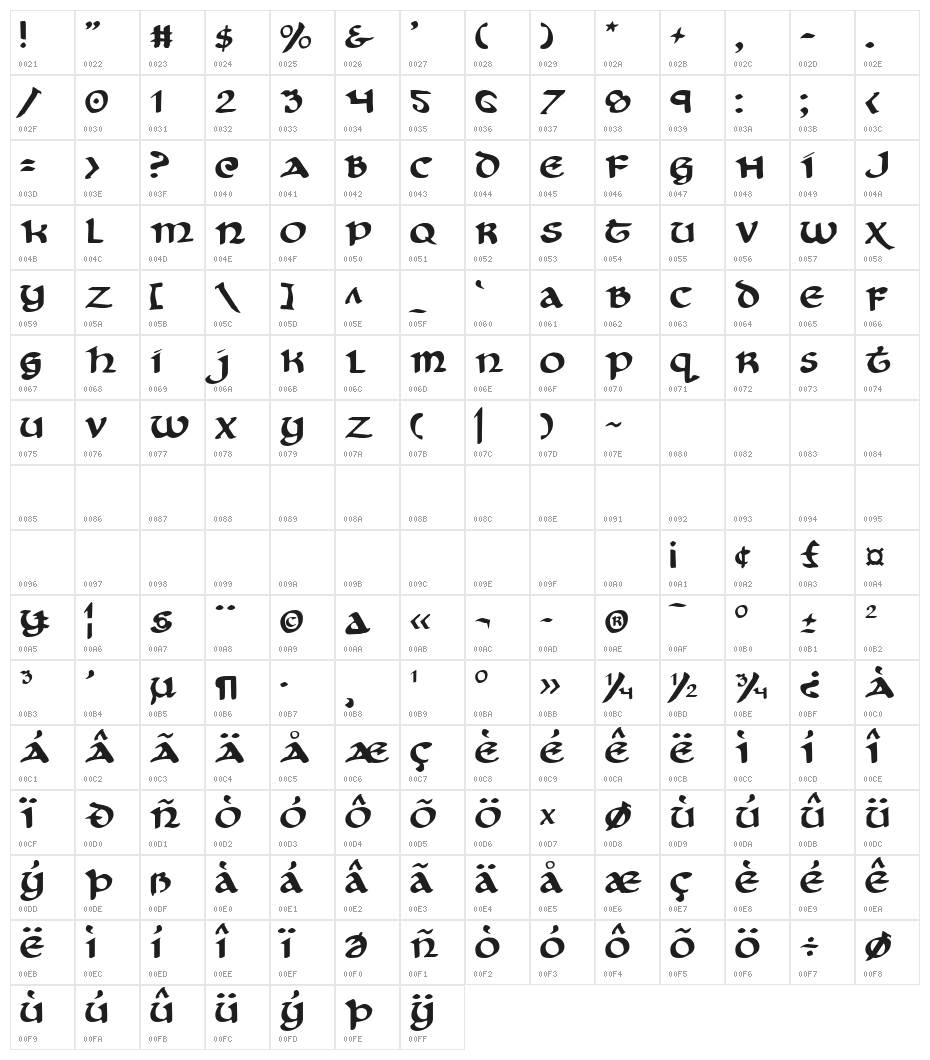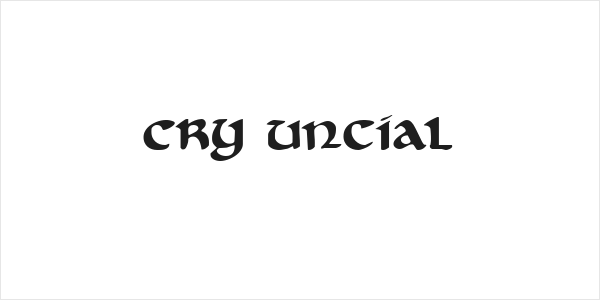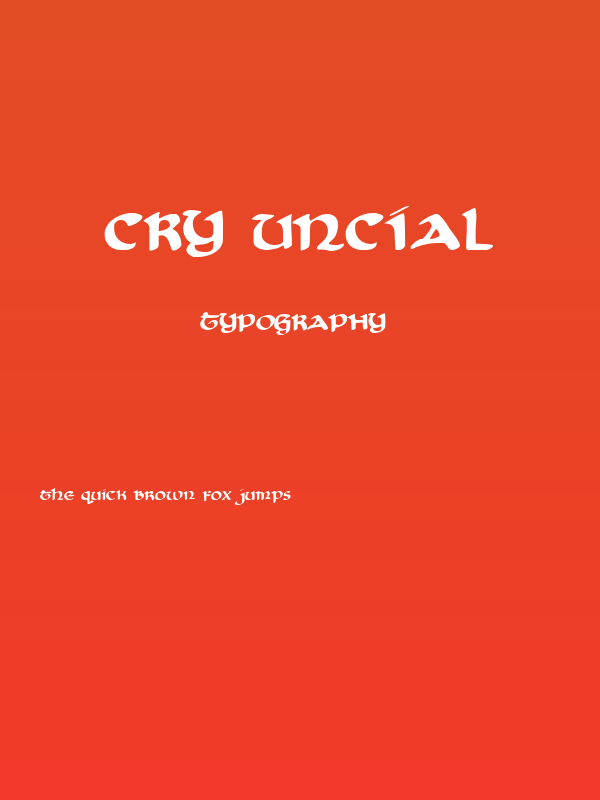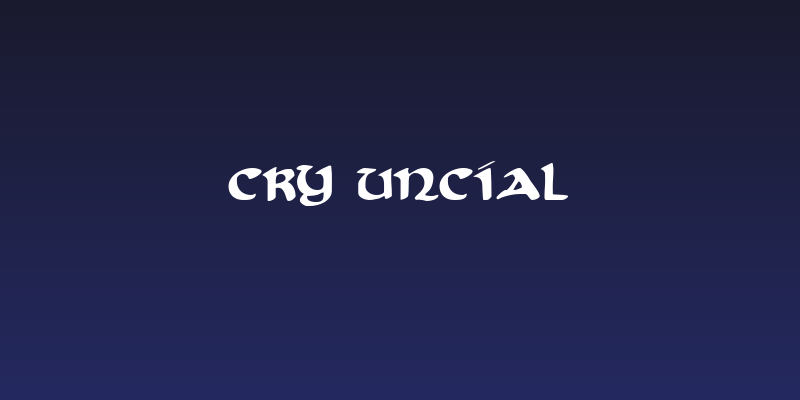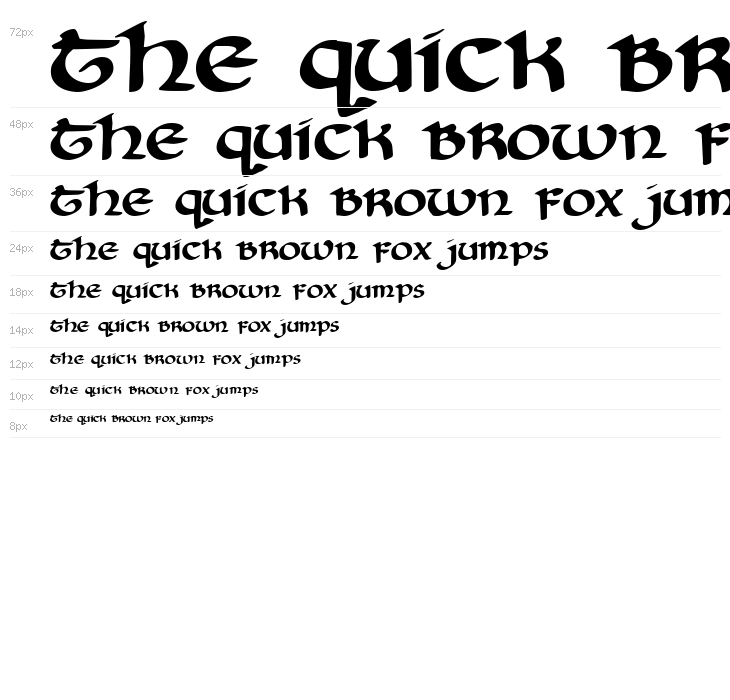
Cry Uncial Font
Cry Uncial Description
This font exhibits a distinctive and historical style reminiscent of medieval script. The characters are bold and have a strong presence, with a unique flair that adds an ancient, mystical quality. The uppercase and lowercase letters are consistent in their ornate design, featuring sharp angles and curves that give them a dramatic appearance. Numbers and special characters are equally stylized, maintaining the overall aesthetic. The font's design is both decorative and functional, making it suitable for projects that require a touch of historical elegance.
| Proposed Projects | Ideal for historical documents, fantasy-themed designs, book covers, and decorative signage. |